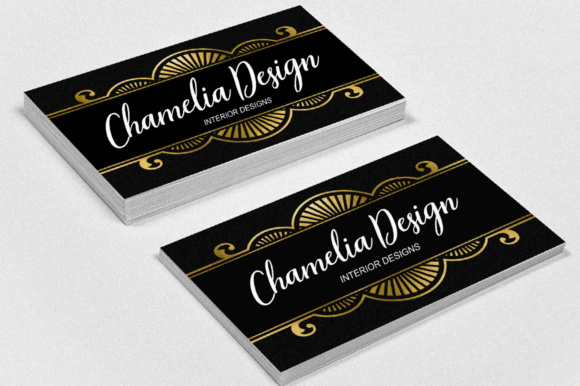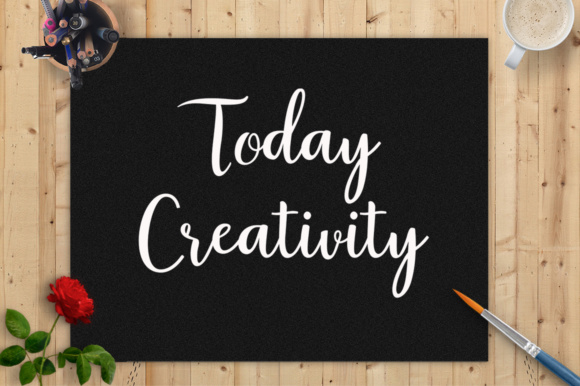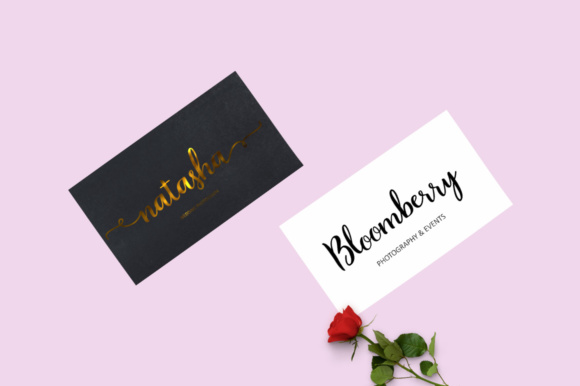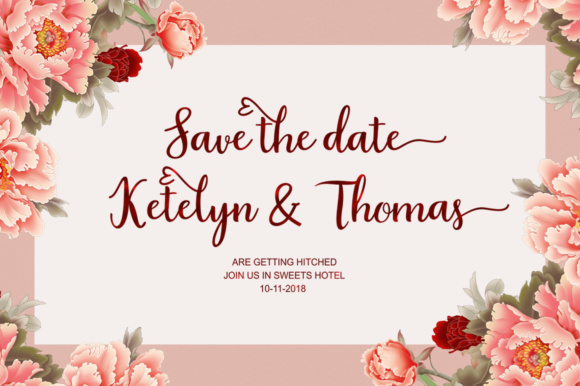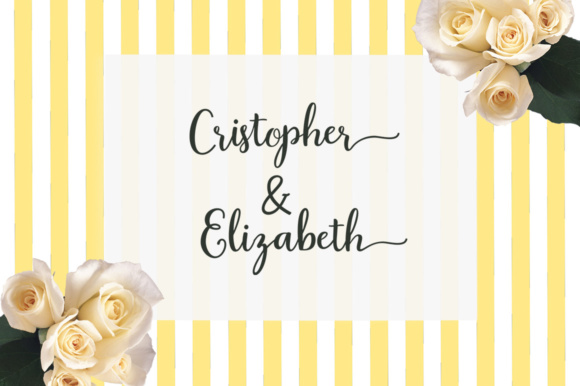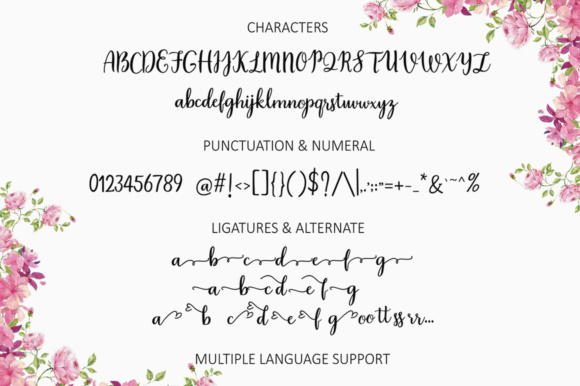
Discover the Magic of Handwritten Charm with Daylily Script Font
Have you ever been captivated by the whimsical charm of handwritten notes and invitations? Perhaps it’s the way a loved one’s scribbled words on a birthday card can evoke a flood of emotions and memories. Whatever the reason, the allure of handwritten script is undeniable. For designers and creatives, capturing this essence in digital form is a challenge that requires the perfect font – and that’s where the Daylily Script Font comes in.
This modern script font boasts an irregular baseline that gives it a unique, handcrafted feel. Perfect for wedding invites, thank you notes, quotes, and blogs, the Daylily Script Font is a versatile tool that can elevate any design project. Its trendy and feminine vibe makes it a standout choice for designers looking to add a touch of personality to their work.
Daylily Script Font Key Features
- Font Family: Daylily Script
- Unique Characteristics: Handwritten, cursive, and elegant script style with a touch of whimsy and romance
Daylily Script Font Review
Overall, I was quite impressed with Daylily Script Font. It’s a beautiful, elegant script font that’s perfect for any project that requires a touch of sophistication.
- Daylily Script Font has a lovely, flowing feel that makes it perfect for quotes, headings, and titles.
- The font is highly customizable, with a range of styles and sizes to choose from.
- The font is also quite versatile and can be used for a variety of projects, from wedding invitations to branding materials.
- The font is well-behaved, with even spacing and a clear, easy-to-read design.
- The font may not be suitable for large blocks of text, as the flowing design can become overwhelming.
In terms of overall impression, I think Daylily Script Font is a great choice for any project that requires a touch of elegance and sophistication. It’s a beautiful, well-designed font that’s sure to impress. However, it may not be suitable for all projects, so be sure to test it thoroughly before use.
Daylily Script Font is ideal for creative projects such as:
– Baby shower decorations and gifts
– Personalized gifts and cards
– Any project that requires a unique, elegant, and playful touch.